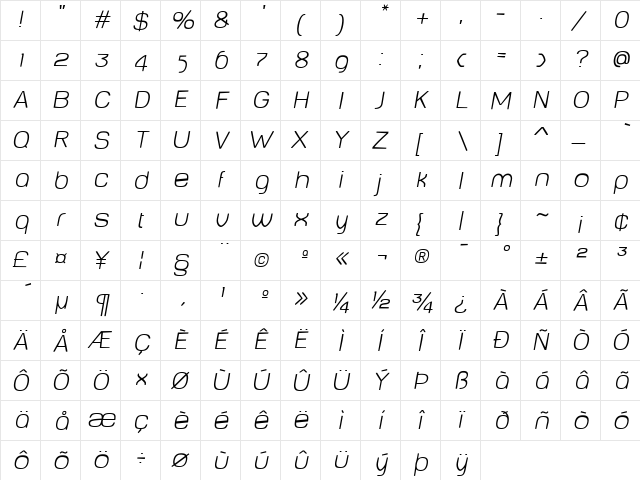
BabyMineThin Italic Font Preview
BabyMineThin Italic
BabyMineThin Italic Font Details
Design Context for BabyMineThin Typeface
BabyMineThin is a composed and adaptable typeface that performs quietly and consistently across a wide range of design contexts. The slanted form adds forward momentum and visual energy. Its slender proportions lend an understated elegance to any composition.
Pro Tip: Try BabyMineThin for annotation and caption copy alongside an upright companion — the contrast in angle creates a dynamic but ordered typographic system.